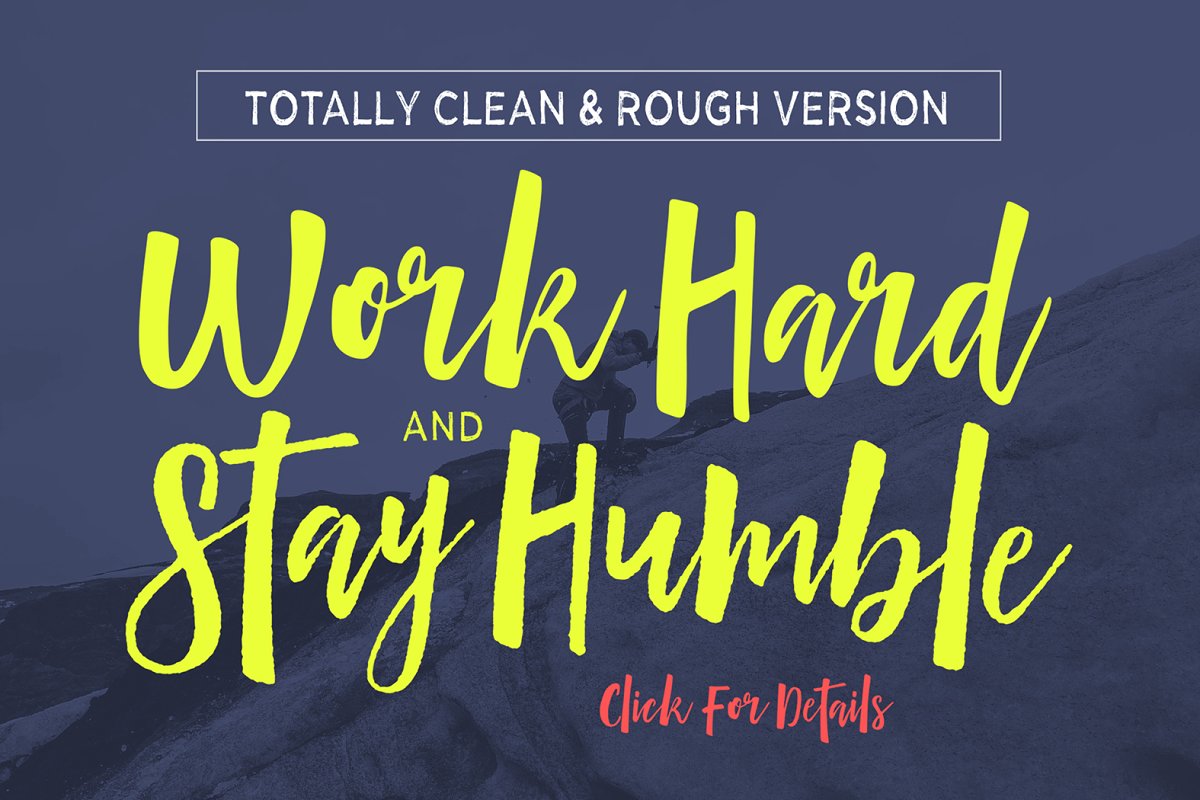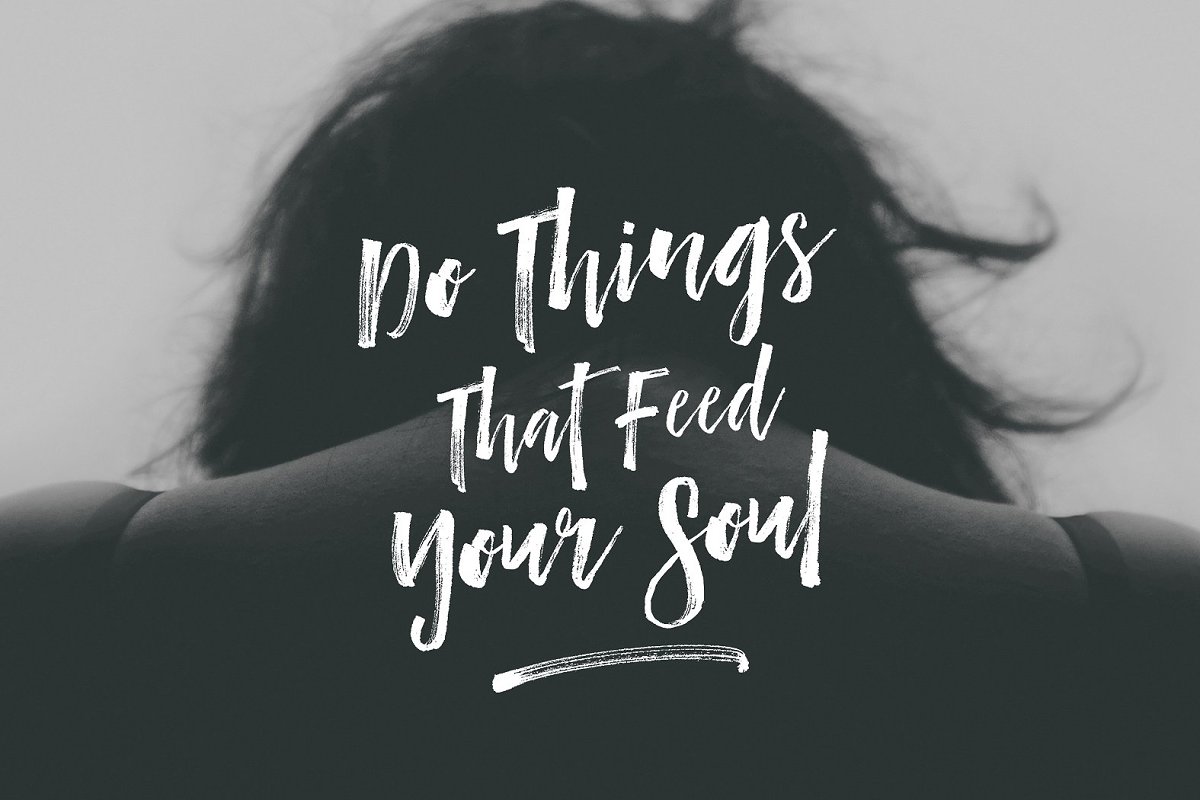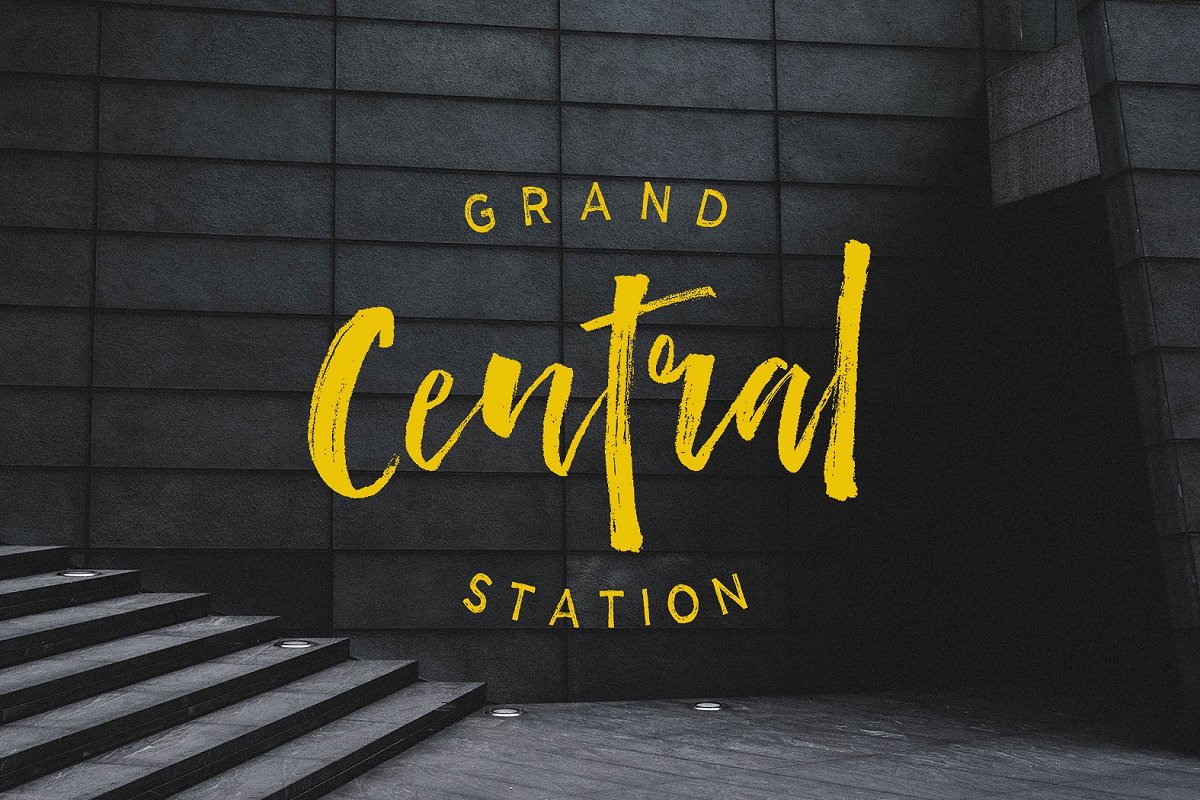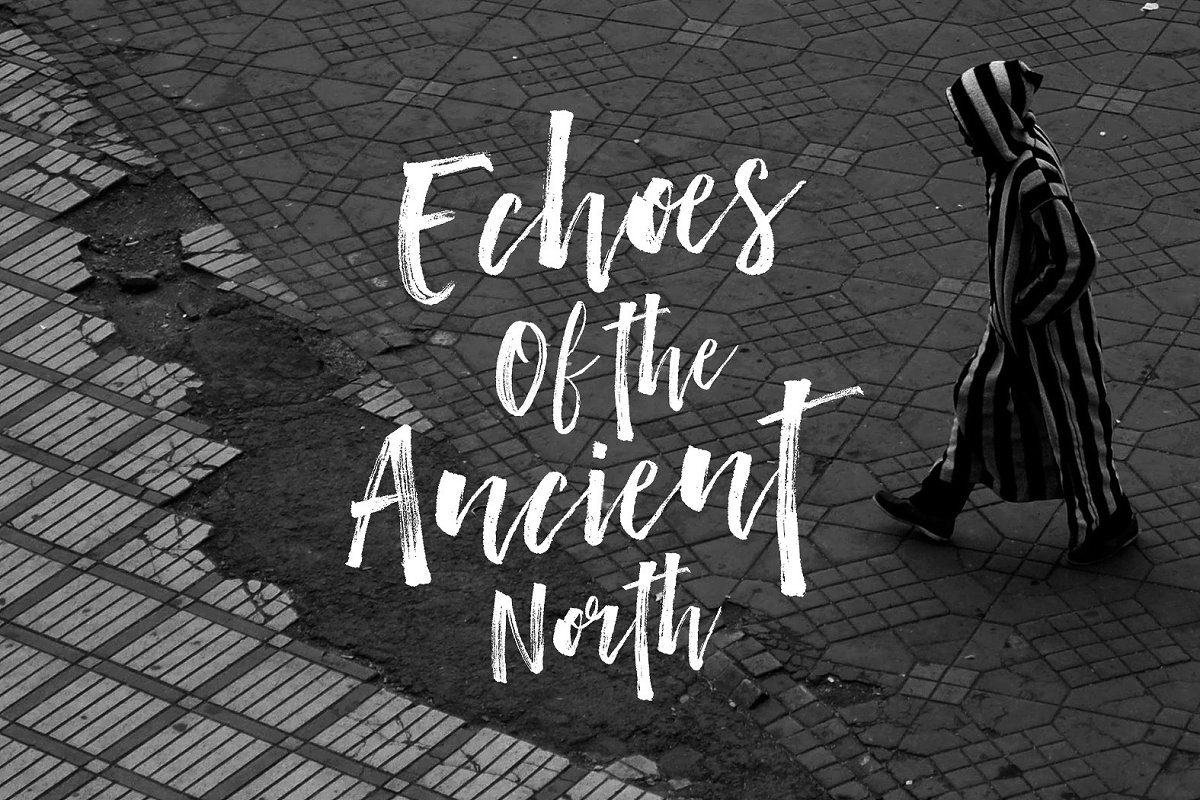
Boomshell Brush – Font Family New font brushed very interesting, also provided some ligatures and swashes extra, Also with additional Boomshell Sans, a font display harmony to be combined with Boomshell Brush, Perfect for projects brands, logos, product packaging, posters, invitations, greeting cards, news, blogs, everything including personal charm etc
★ Just Updated – Boomshell Clean! Now been updated to include 3 styles: a dry brush, textured smooth brush and a totally clean version, Fonts Included OTF, TTF Files:Boomshell One ExtraBoomshell Two ExtraBoomshell Clean One ExtraBoomshell Clean Two ExtraBoomshell Rough SansThanks so much for looking and please let me know if you have any question